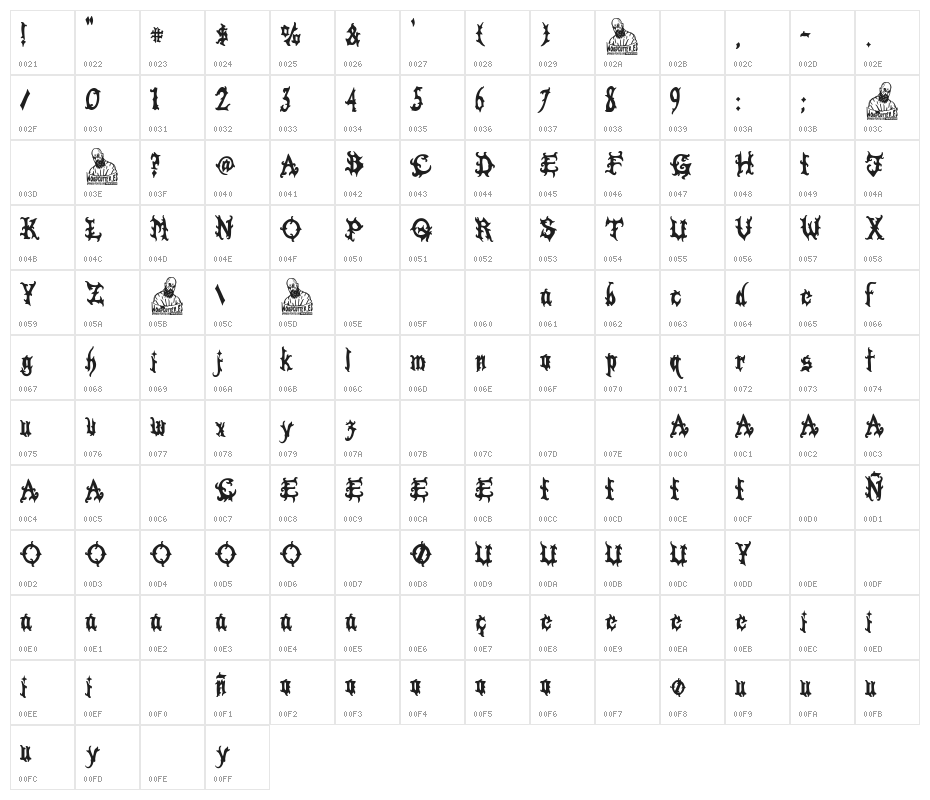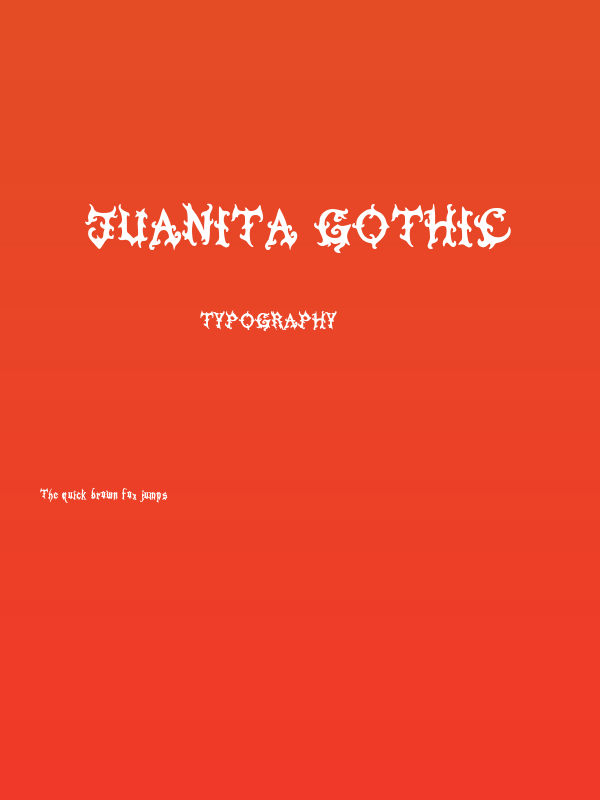
Juanita Gothic Font
Juanita Gothic Description
Highly decorative and spiky letterforms with dramatic flourishes, reminiscent of gothic or medieval script styles. The characters are bold, angular, and feature sharp points and intricate details, creating a visually striking and intense appearance.
| Overall Style | Decorative, Gothic, Dramatic |
| Use Case | Logos, Headlines, Posters, Themed Graphics |
| Proposed Projects | Horror posters, Halloween invitations, band logos, fantasy book covers, themed event graphics. |